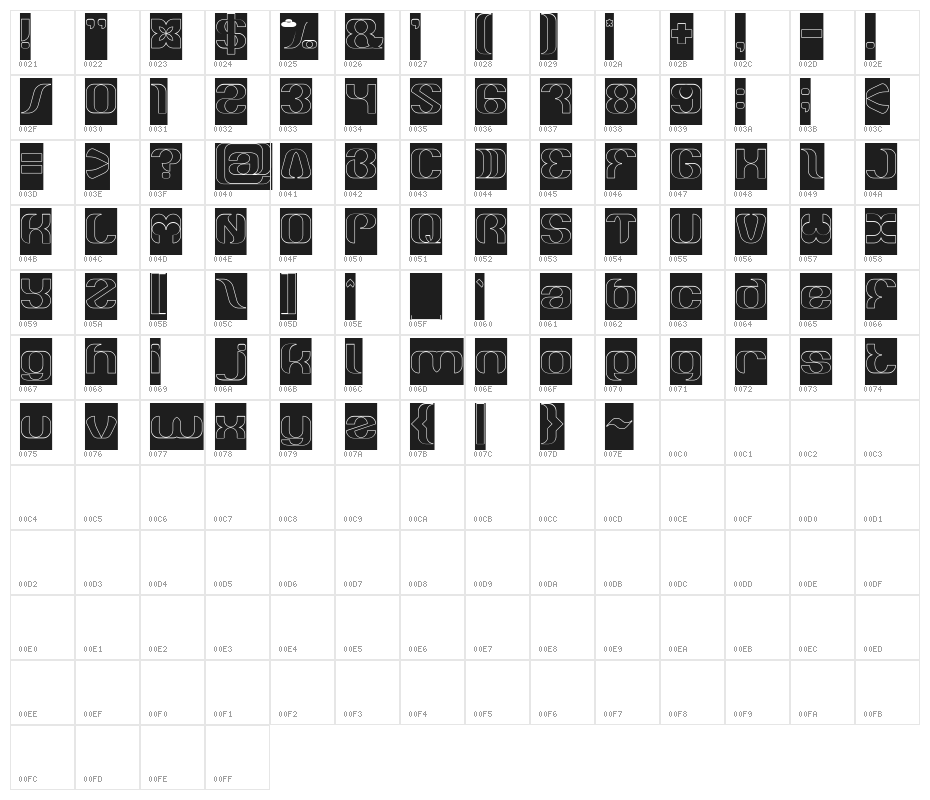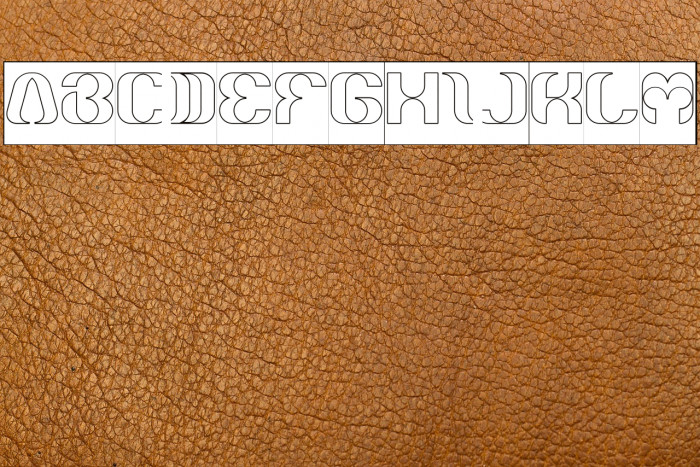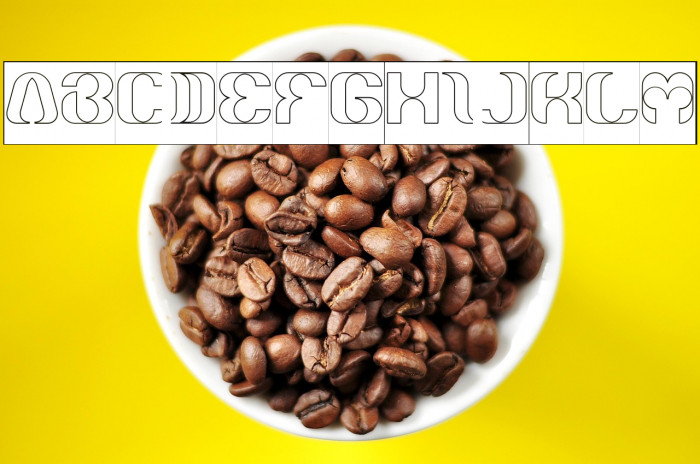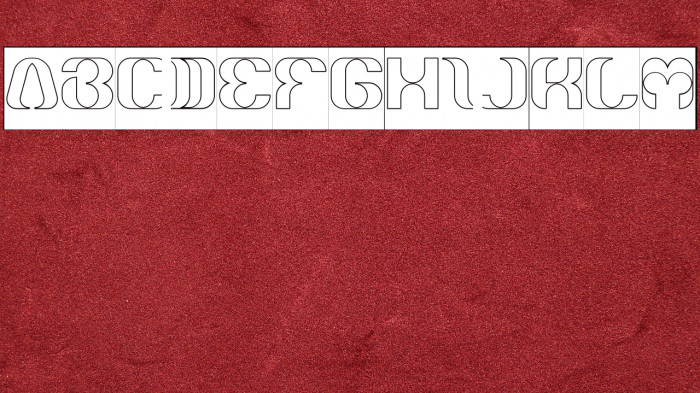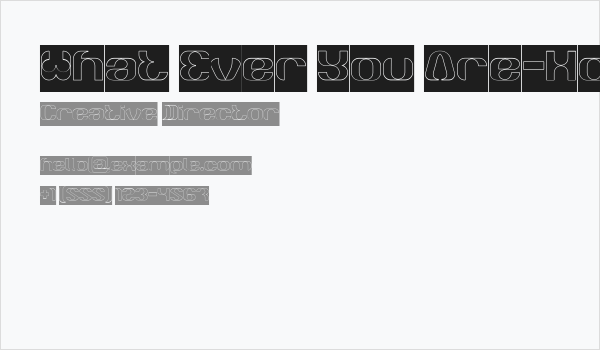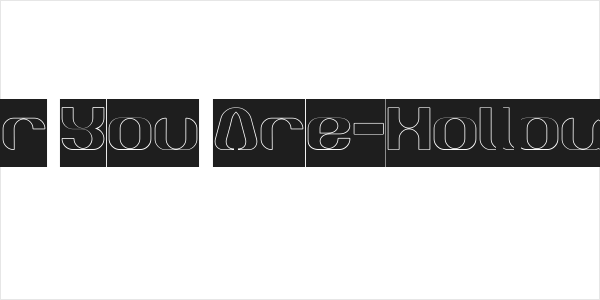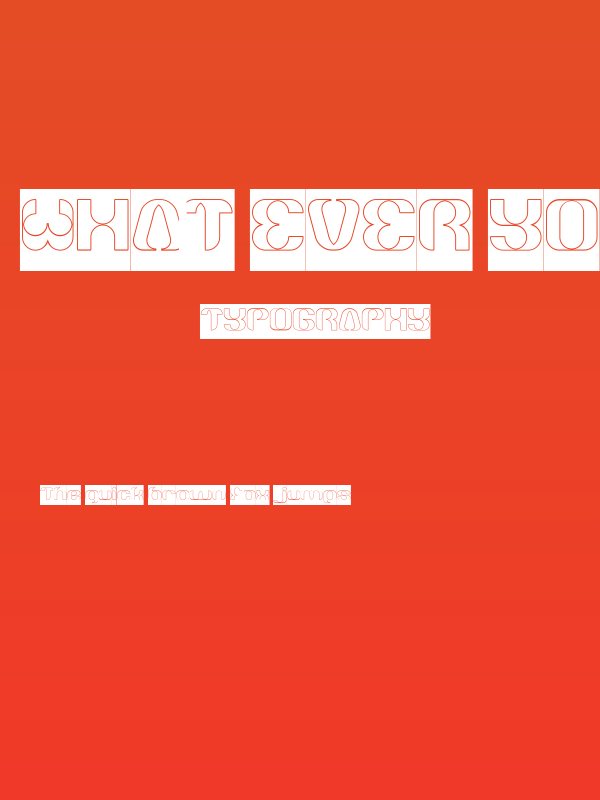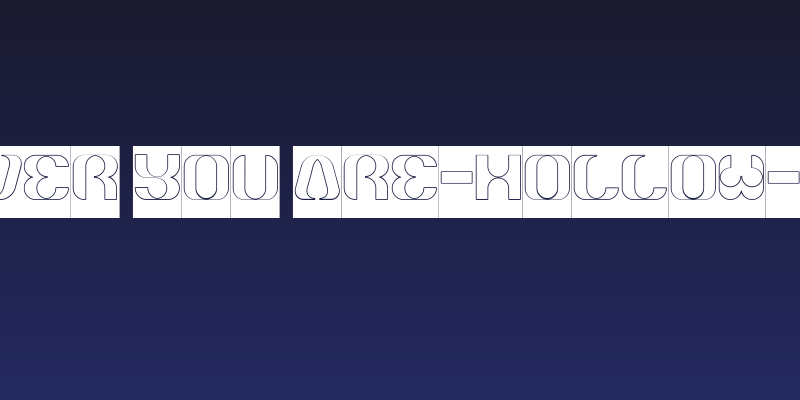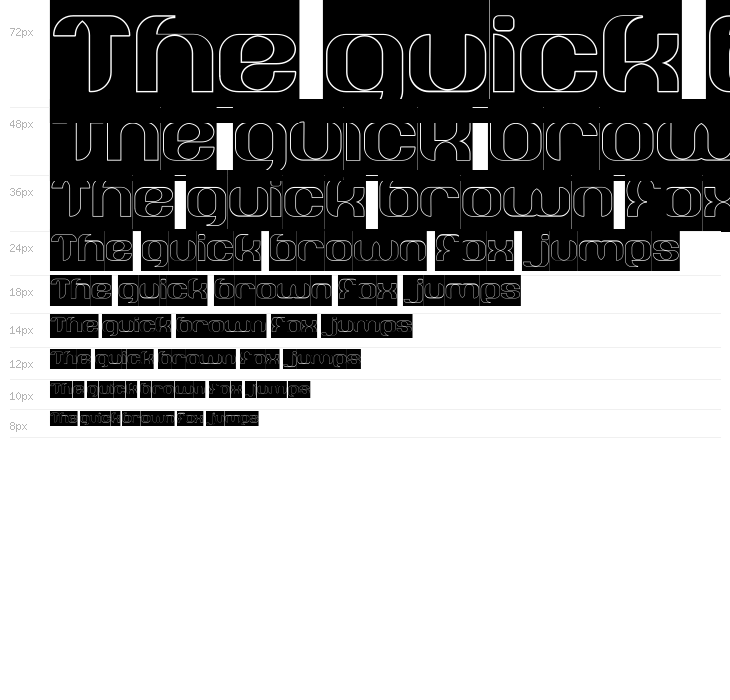
What Ever You Are-Hollow-Invers Font
What Ever You Are-Hollow-Invers Description
This font features a unique hollow design with a modern and artistic flair. Each character is outlined with a consistent stroke, creating a visually striking appearance. The uppercase and lowercase letters maintain a cohesive style, with rounded edges and smooth curves that enhance readability while adding a decorative touch. The numerals and special characters follow the same design principles, ensuring uniformity across all elements. This font's hollow nature gives it a light and airy feel, making it suitable for creative and contemporary projects.
| Proposed Projects | Ideal for branding, posters, digital art, and any project seeking a modern and artistic touch. |